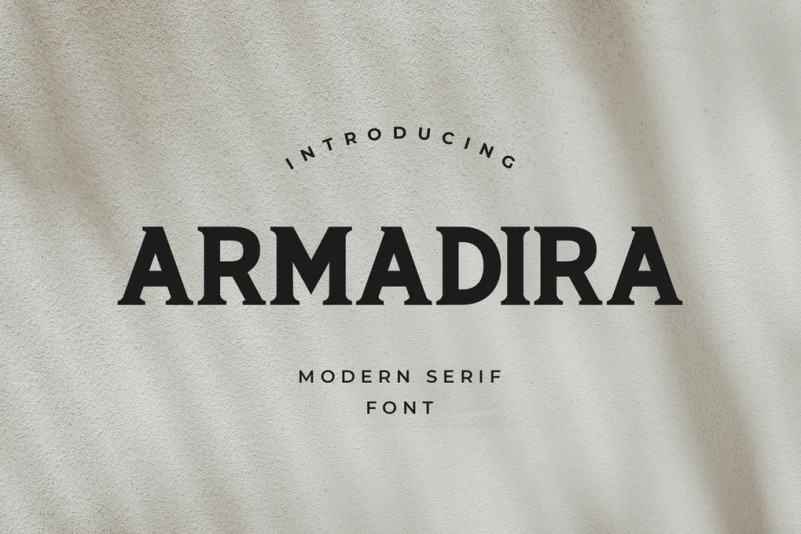
ARMADIRA Font
ARMADIRA is unique font and also has vintage display font. Can make it easier to convey the message in your design. Use for awesome display, labeling, clothing, movie sceen, poster, movie title, gigs, album covers, logos, and much more. It’s also could be good for both fun and semi-formal text.